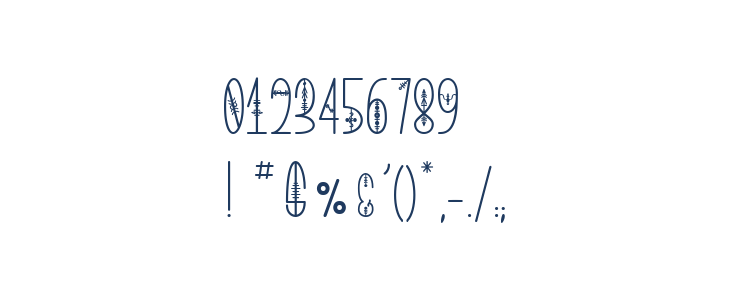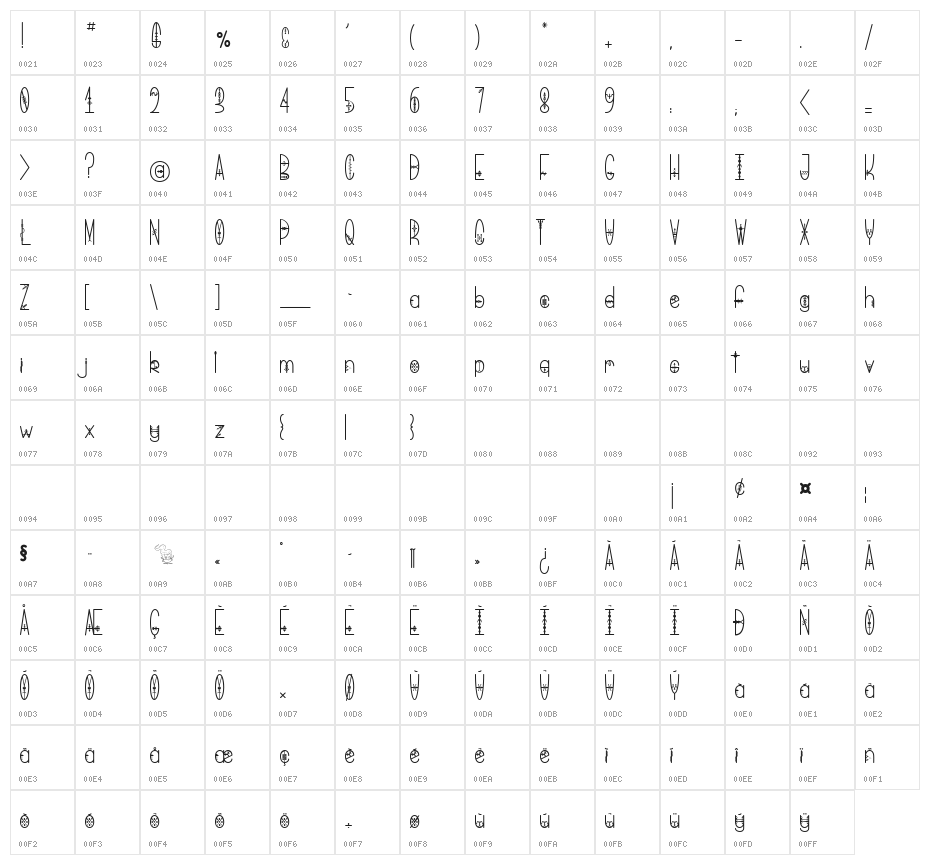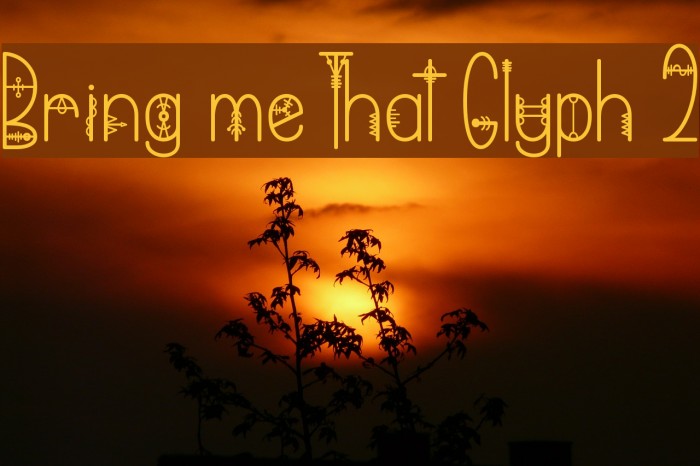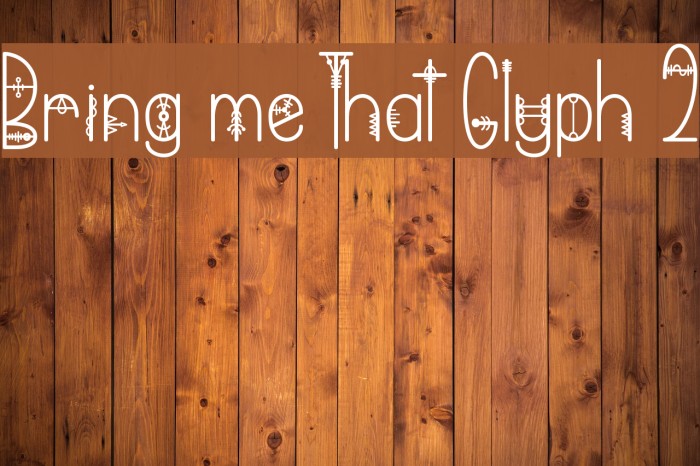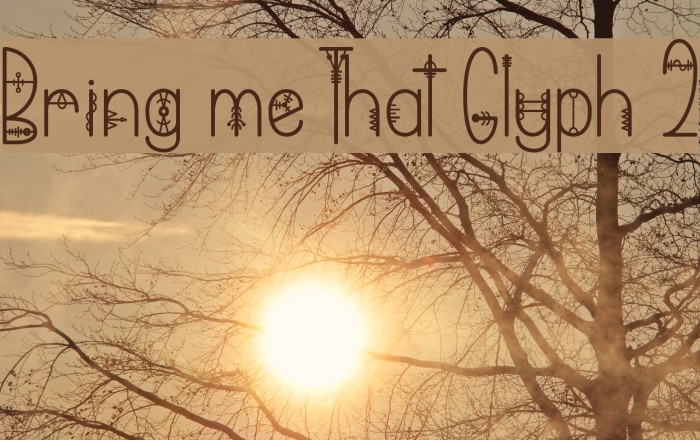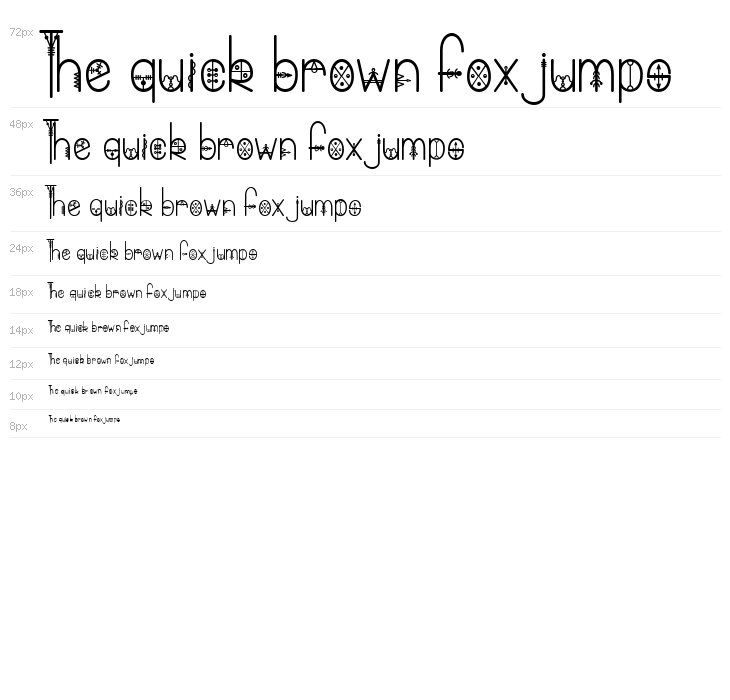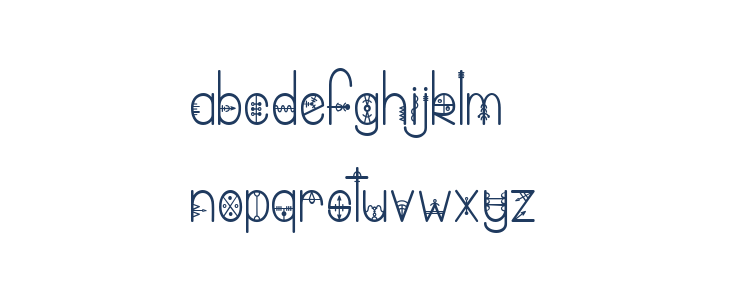
Bring me That Glyph 2 Font
Bring me That Glyph 2 Description
This font features a unique and decorative style, characterized by intricate geometric patterns and symbols embedded within each character. The uppercase and lowercase letters maintain a consistent height and width, creating a uniform appearance. The numbers and special characters are equally adorned with detailed embellishments, adding to the font's ornate aesthetic. The overall design is reminiscent of ancient scripts or mystical symbols, making it stand out as a distinctive choice for creative projects. The font's intricate details require careful consideration in its application to ensure legibility while showcasing its artistic flair.
| Use Case | Logos, Posters, Artistic Projects |
| Proposed Projects | Ideal for fantasy-themed designs, mystical branding, or artistic posters. |